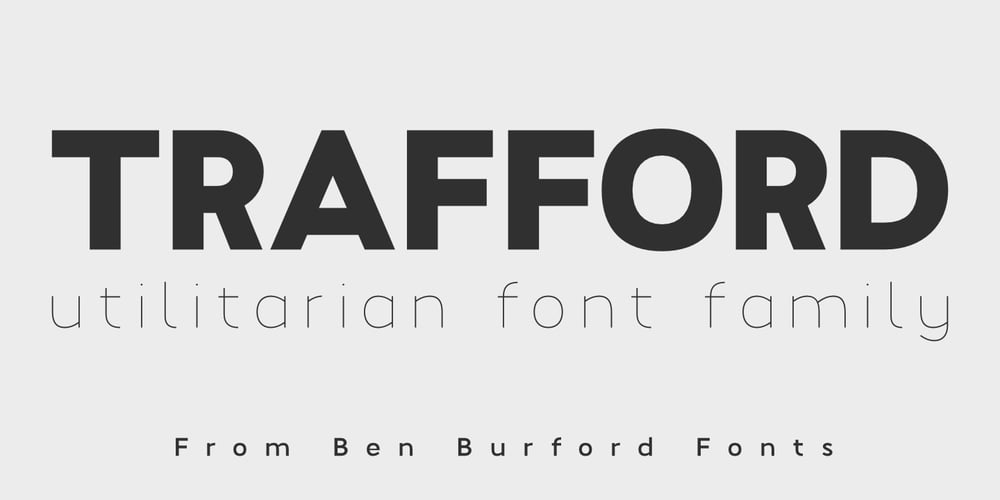
Trafford Font Family was designed by Ben Burford and published by Ben Burford Fonts. Trafford contains 12 styles and family package options. Trafford has its roots in Modern design, its bold look giving it strength yet having a playful nature. with just a nod to mid century design it will give any project a statement of individualism be it print or digital media.